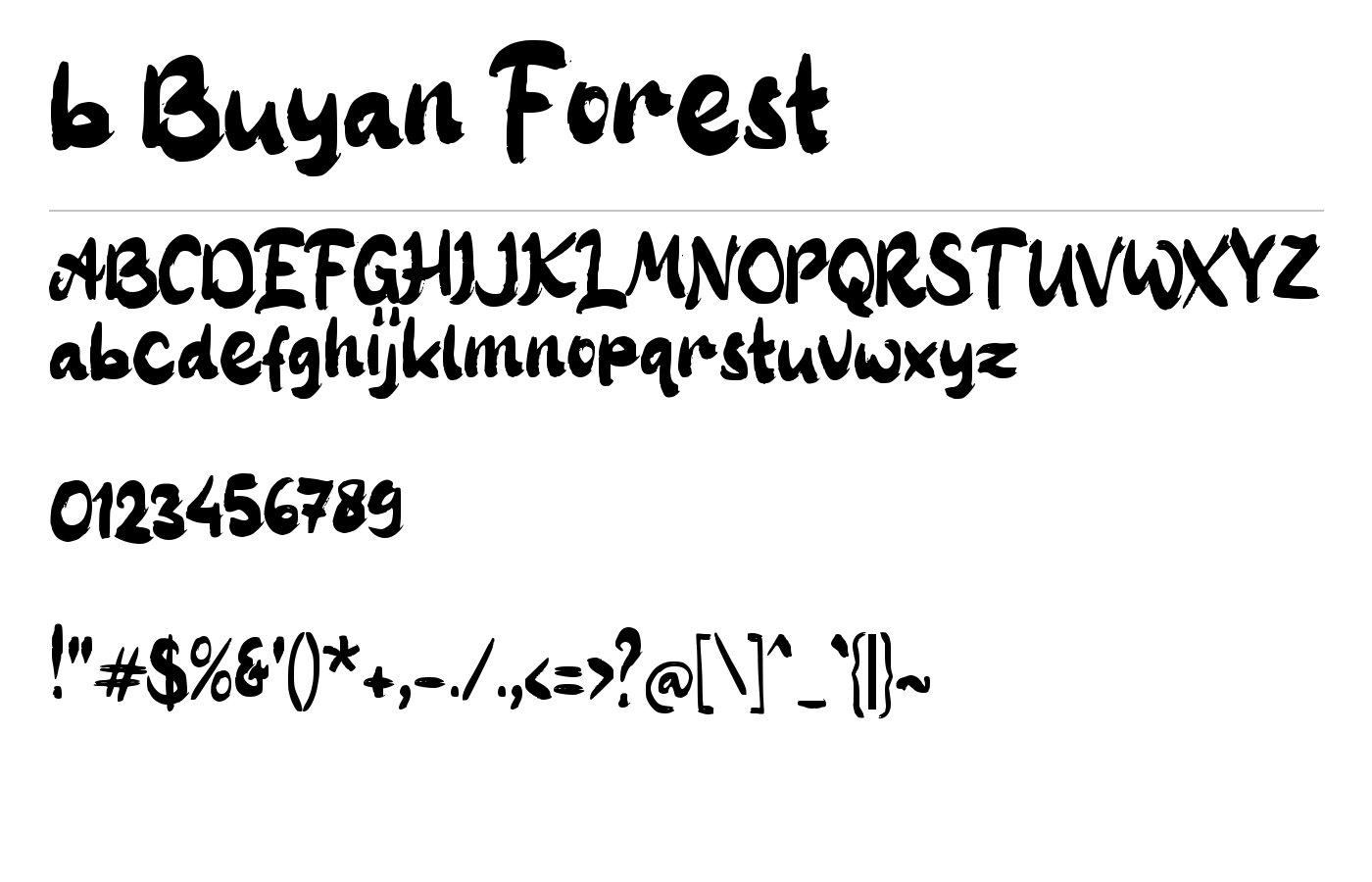
Buyan Forest is a bold, hand-drawn script font that carries a playful and organic feel, resembling brush strokes with slightly rough edges. Its lively letterforms and casual style make it ideal for creative and nature-inspired branding, posters, or headlines where a friendly, informal mood is desired. This font works well for designs seeking a personal, artistic touch without sacrificing readability.
b Buyan Forest Font
About b Buyan Forest Font